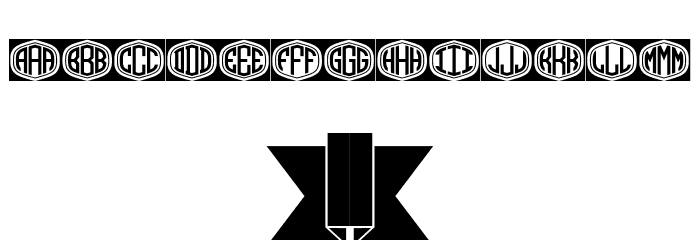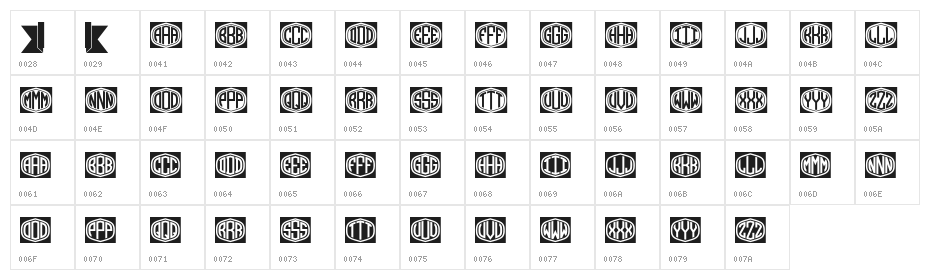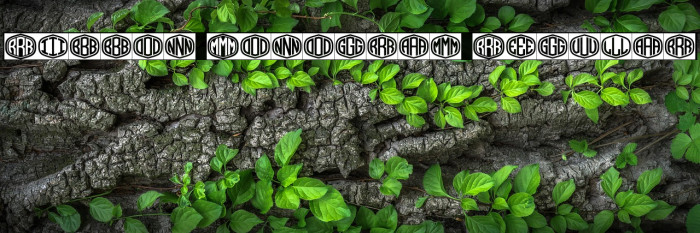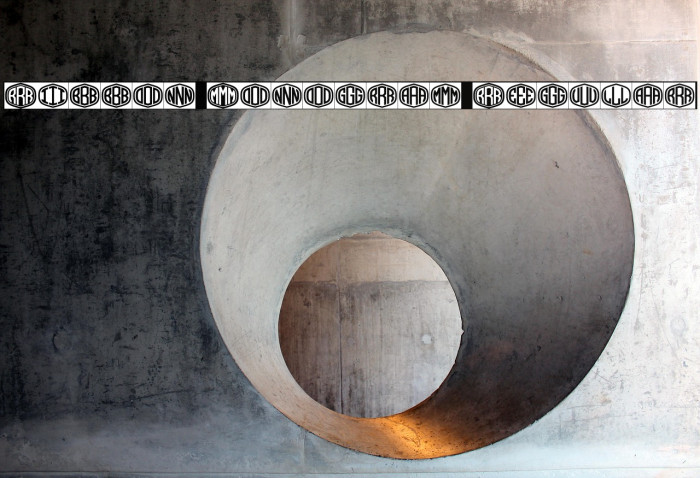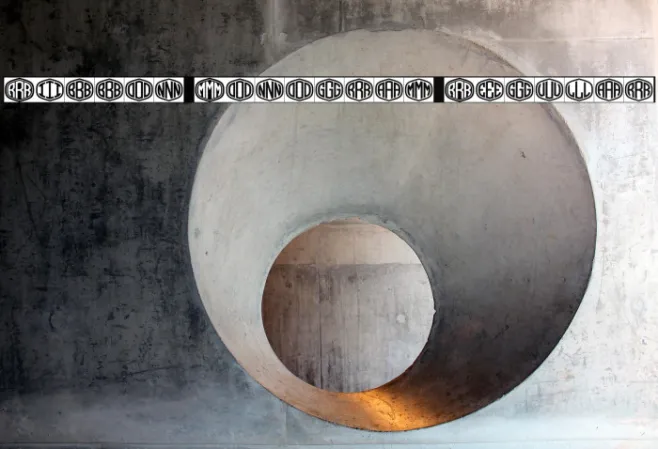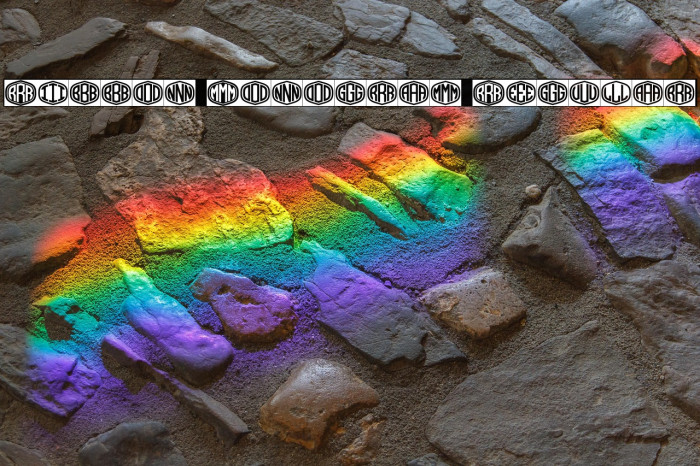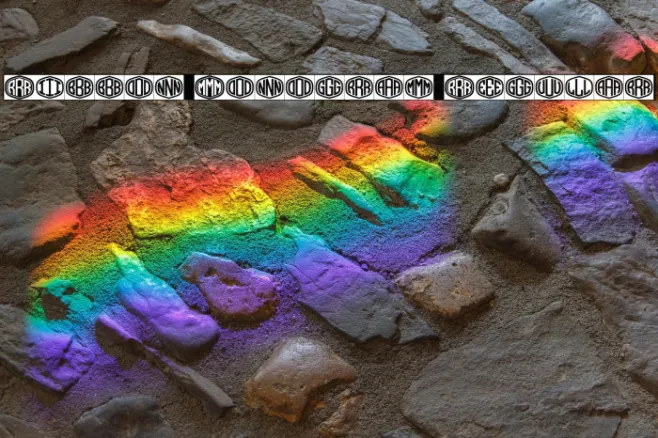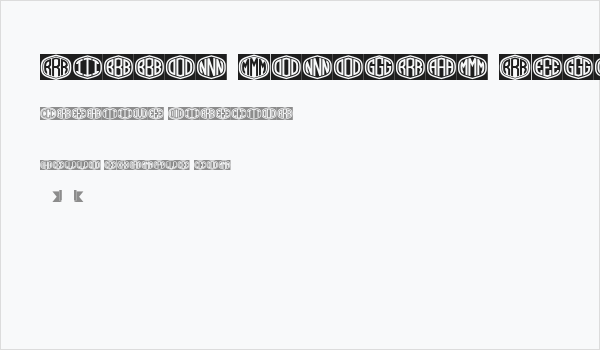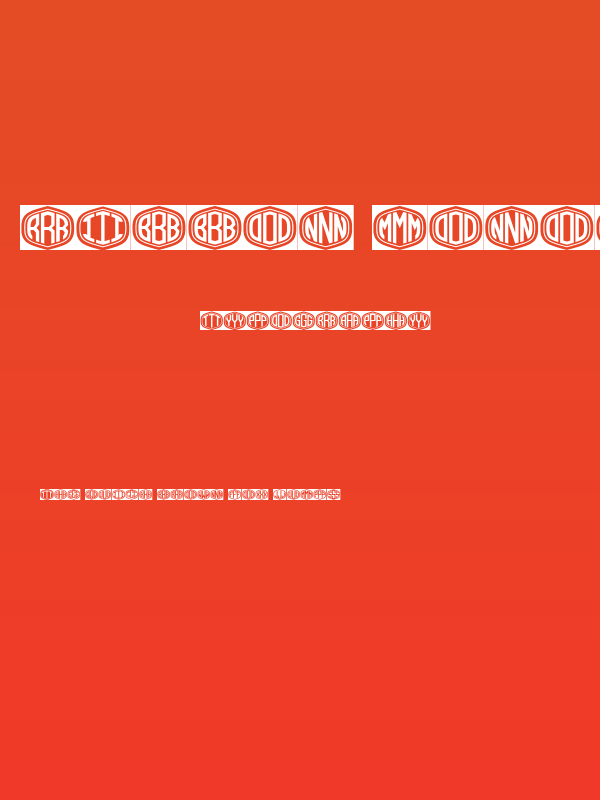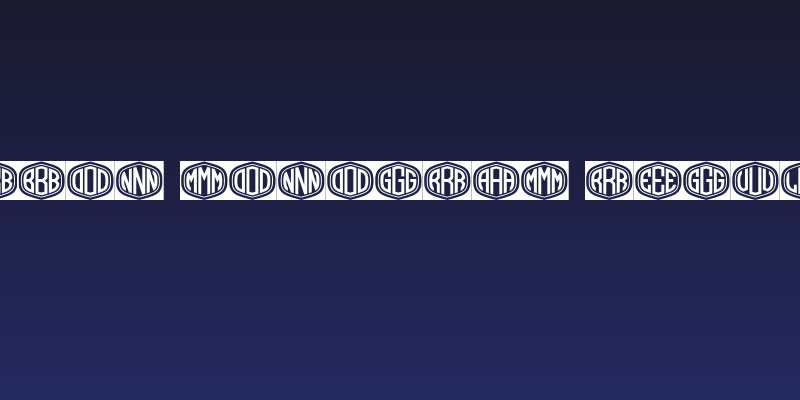
Ribbon Monogram Regular Font
Ribbon Monogram Regular Description
This font features a unique monogram style where each letter is encapsulated within an oval shape, creating a distinct and decorative appearance. The characters are bold and evenly spaced, with a consistent width and height across all letters. The design is highly symmetrical, emphasizing a classic and elegant aesthetic suitable for formal and decorative uses. The uppercase and lowercase letters are presented in a similar style, maintaining uniformity and balance. The font's boldness and enclosed design make it ideal for creating personalized monograms, logos, and decorative initials.
| Use Case | Logos, Monograms, Decorative text |
| Proposed Projects | Ideal for monogram designs, personalized stationery, wedding invitations, and logo creation. |